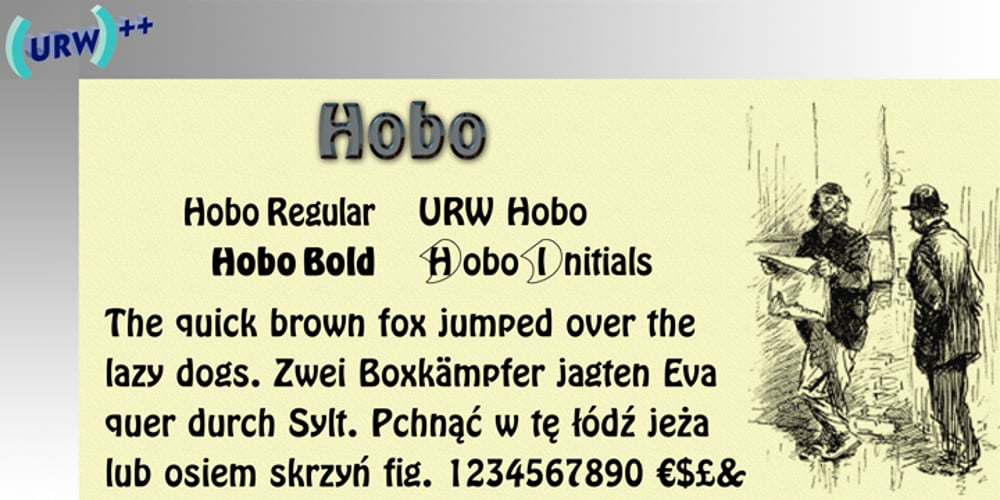
Hobo Font Family was designed by Morris Fuller Benton and published by URW Type Foundry. Hobo contains 6 styles and family package options. The Hobo font is a dynamically tapering face in which all strokes are accentuated curves, achieving a superb decorative effect. Hobo almost suggests a freely drawn alphabet with its unusual robust roundness. The Hobo font was designed to be used at large sizes. It has no descenders: the lower case g, p, q and y are incorporated into the x-height. The Hobo font imparts a friendly personality to display work such as invitations, menus, signage and packaging.